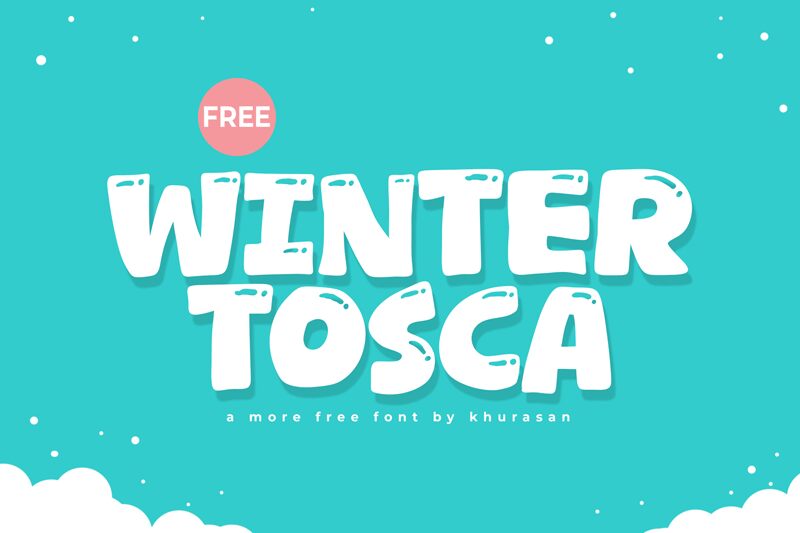
Winter Tosca font family by Khurasan™ includes 2 font styles that are available as freeware. The cartoon font brings back the innocence of childhood with its playful and joyful letters. Each letter has a uniqueness of its own, and a collective cheerful feel through its expressive subtle high contrast visible in the different weights of its strokes.
The approachable font is the ideal addition for a variety of children-themed projects like books, magazines, games, cartoons, and animations. Give life to your posters, signage, packaging designs, stationery, and more. Winter Tosca works well both in large and small sizes.